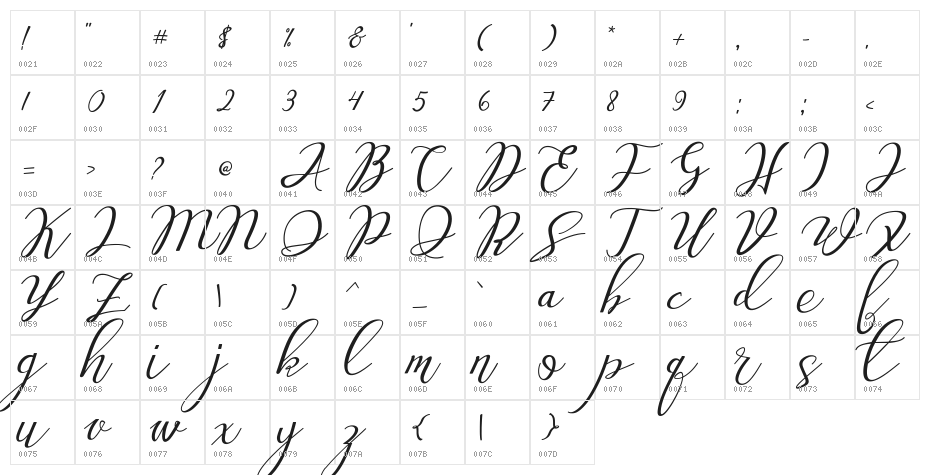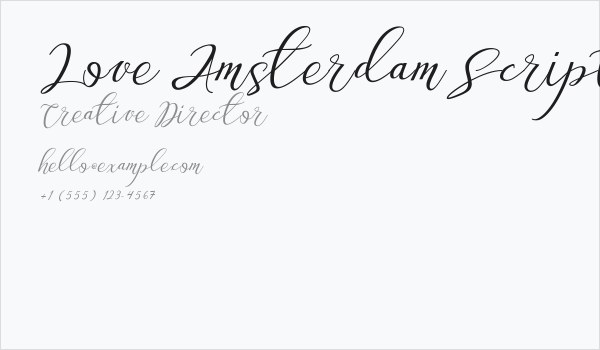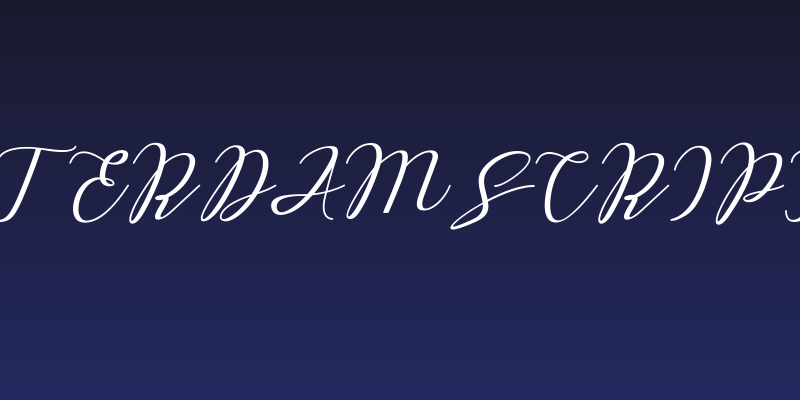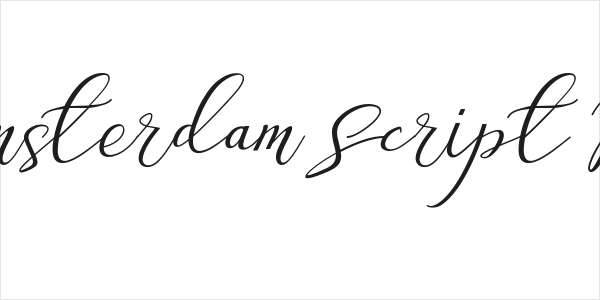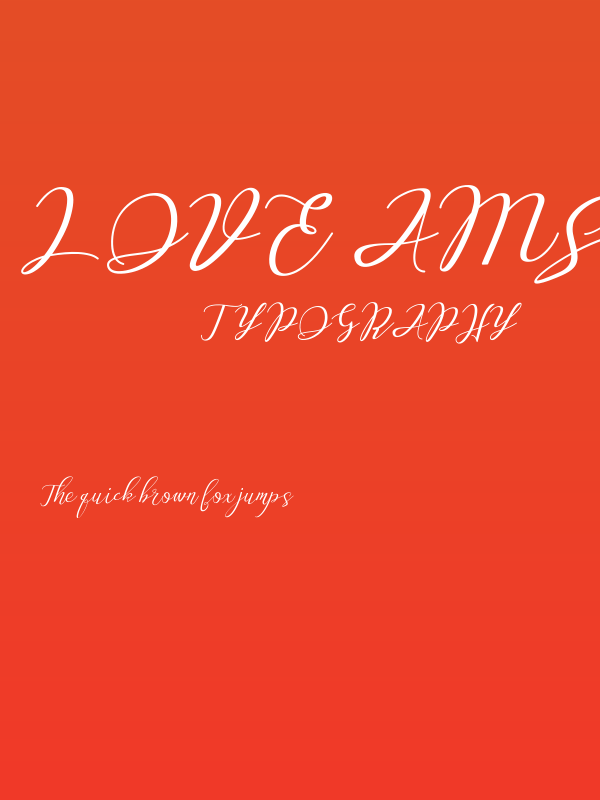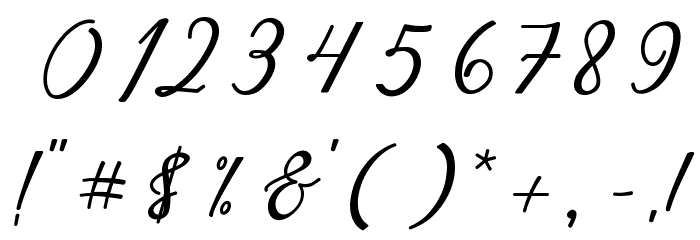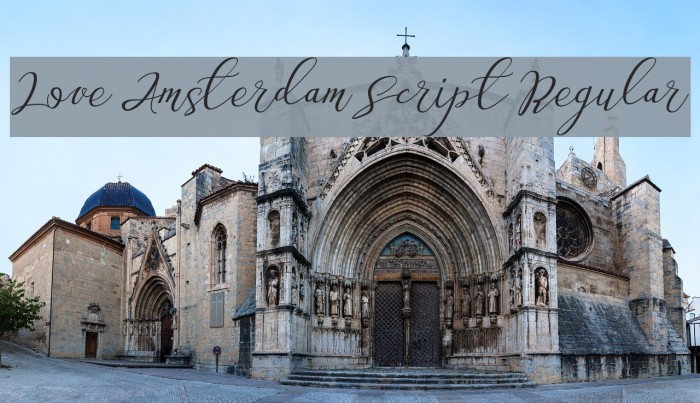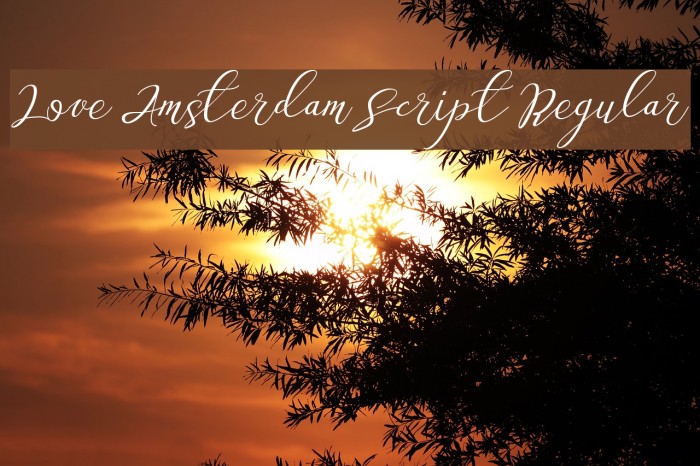
Love Amsterdam Script Regular Font
Love Amsterdam Script Regular Description
This elegant script font features a flowing, cursive style with a sophisticated and artistic flair. The uppercase letters are gracefully connected, while the lowercase letters exhibit a smooth, continuous flow, enhancing the font's overall fluidity. The numerals maintain the same elegant style, ensuring consistency throughout. The special characters are designed with the same attention to detail, making them blend seamlessly with the rest of the typeface. This font's delicate strokes and refined curves make it ideal for projects that require a touch of elegance and sophistication.
| Overall Style | Elegant |
| Use Case | Logos, Invitations, Decorative text |
| Proposed Projects | Ideal for wedding invitations, greeting cards, branding, and elegant logo designs. |